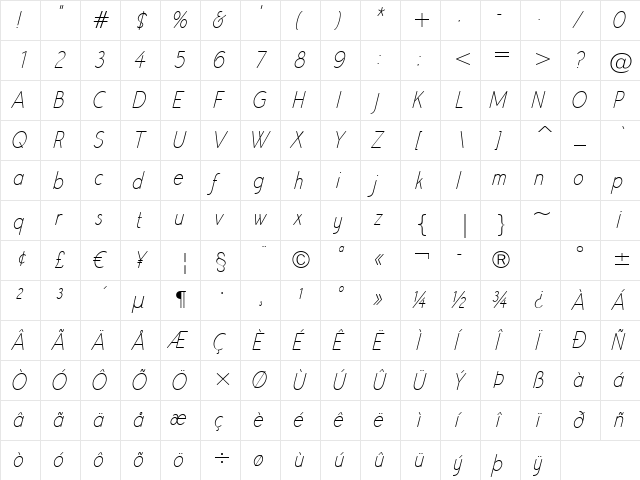
Register Sans BTN CnLt Oblique
Design Context for Register Sans BTN CnLt Typeface
Register Sans BTN CnLt is a composed and adaptable typeface that performs quietly and consistently across a wide range of design contexts. The dynamic lean of this cut emphasises speed and emphasis in any layout.
Pro Tip: Try Register Sans BTN CnLt for annotation and caption copy alongside an upright companion — the contrast in angle creates a dynamic but ordered typographic system.